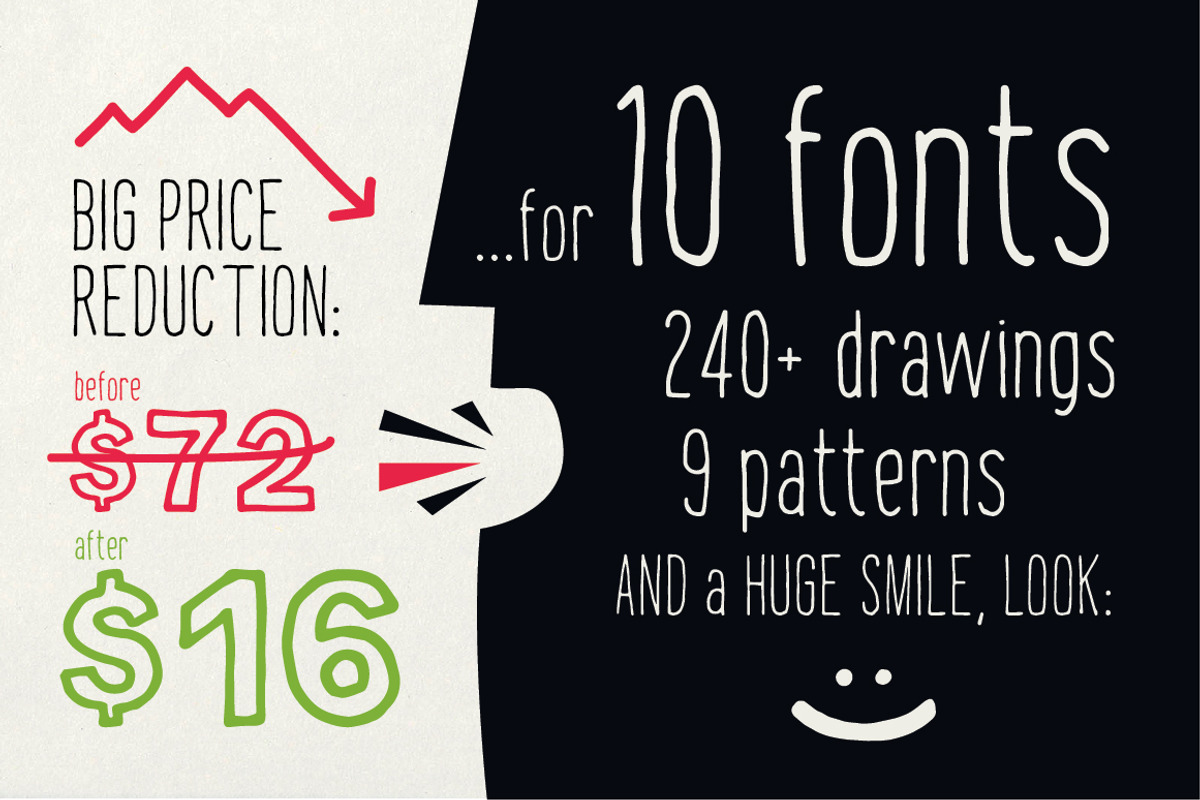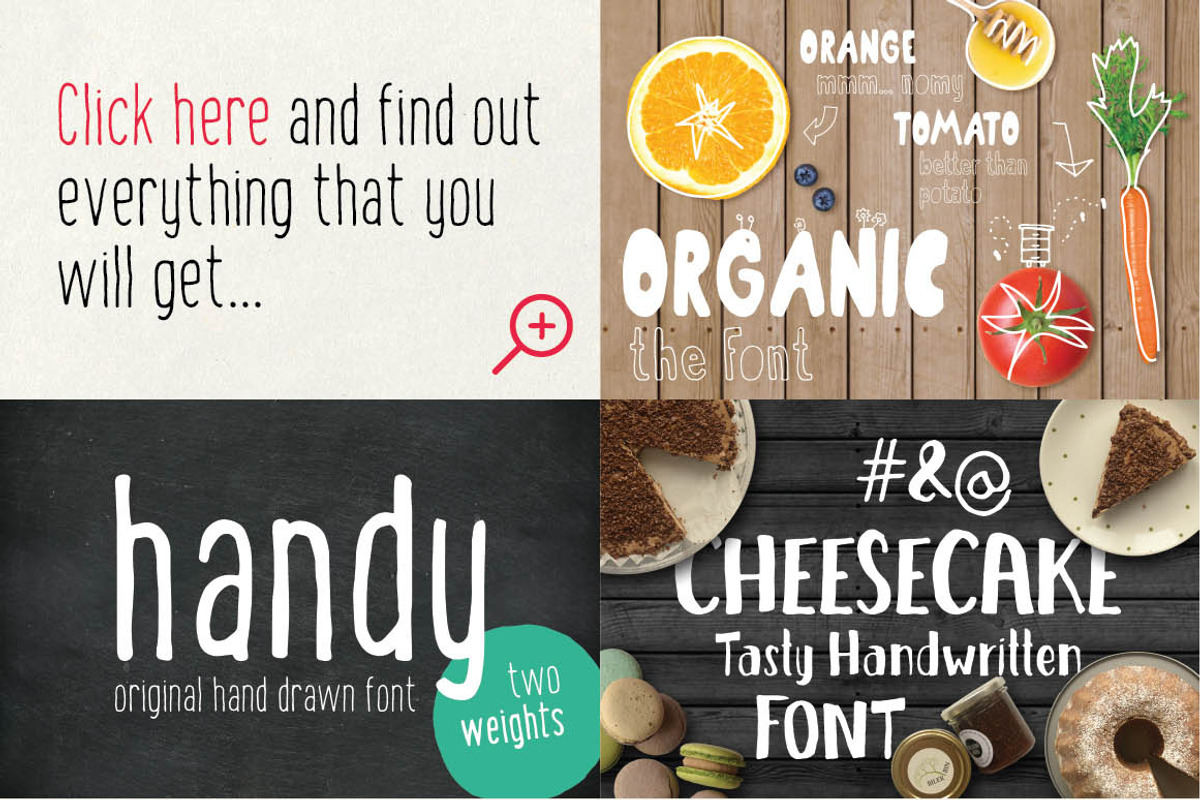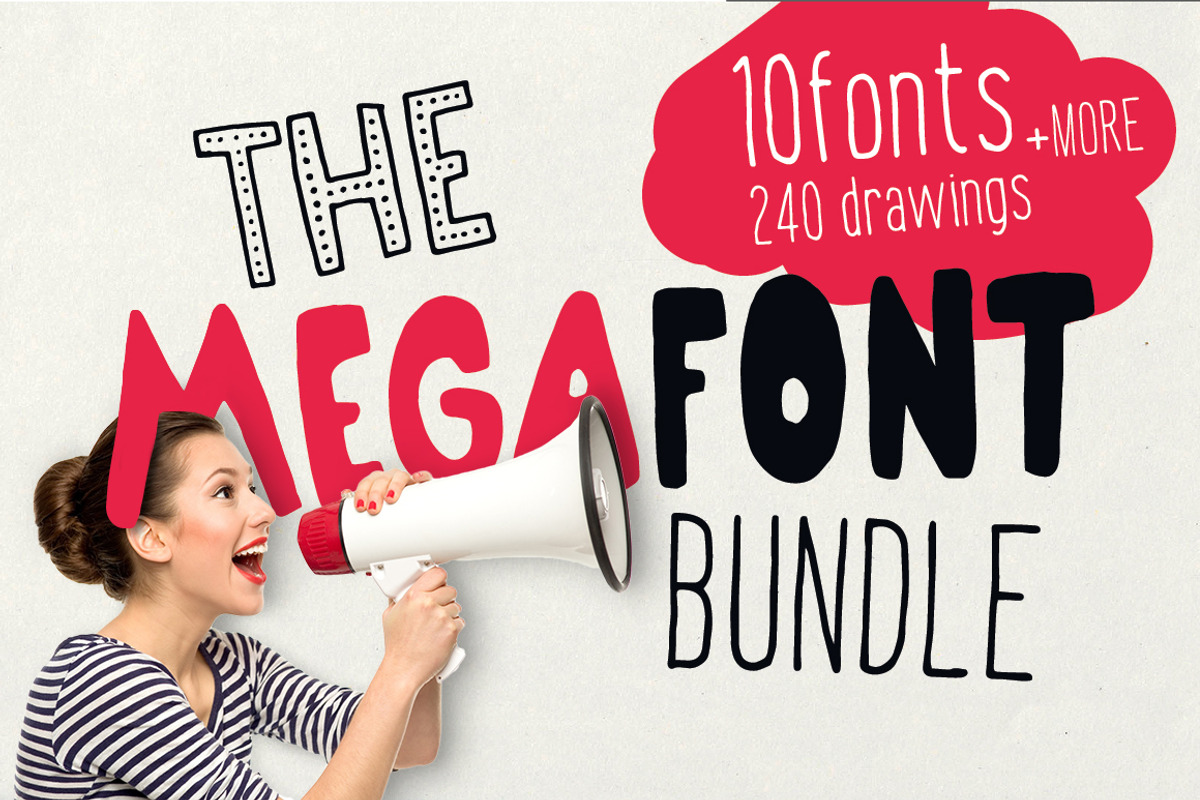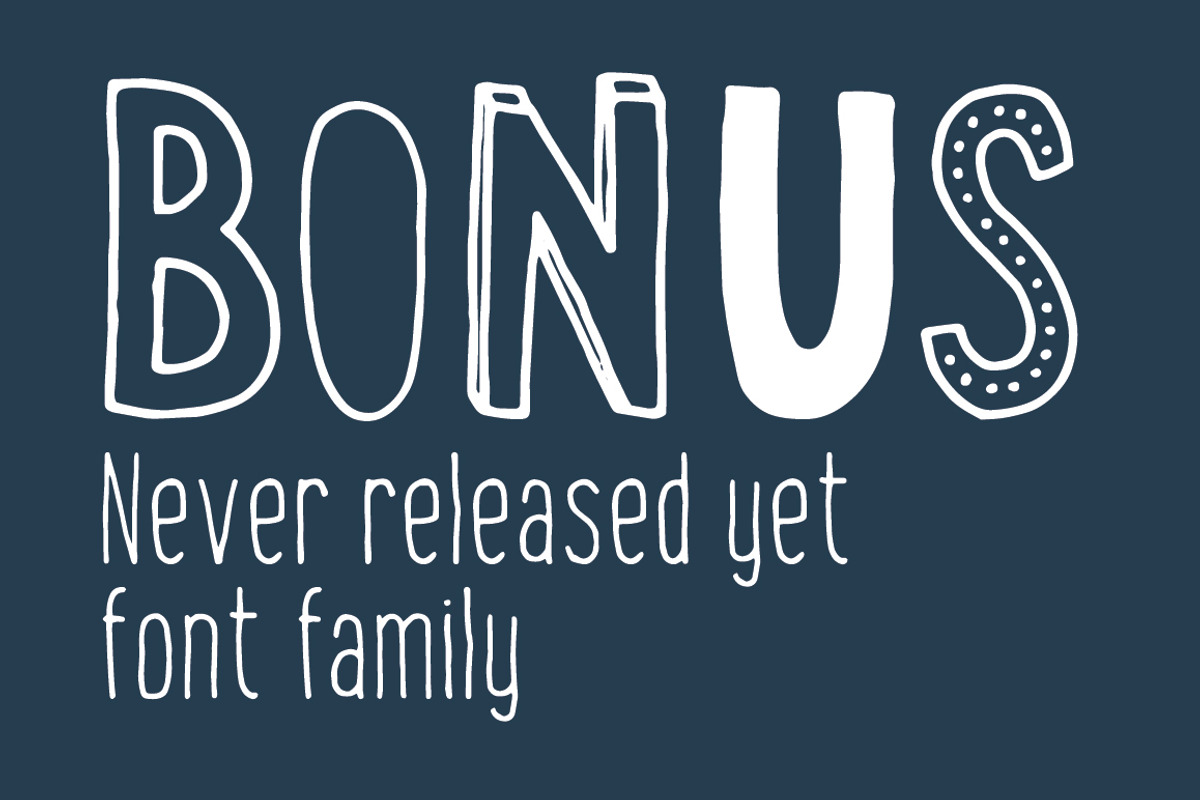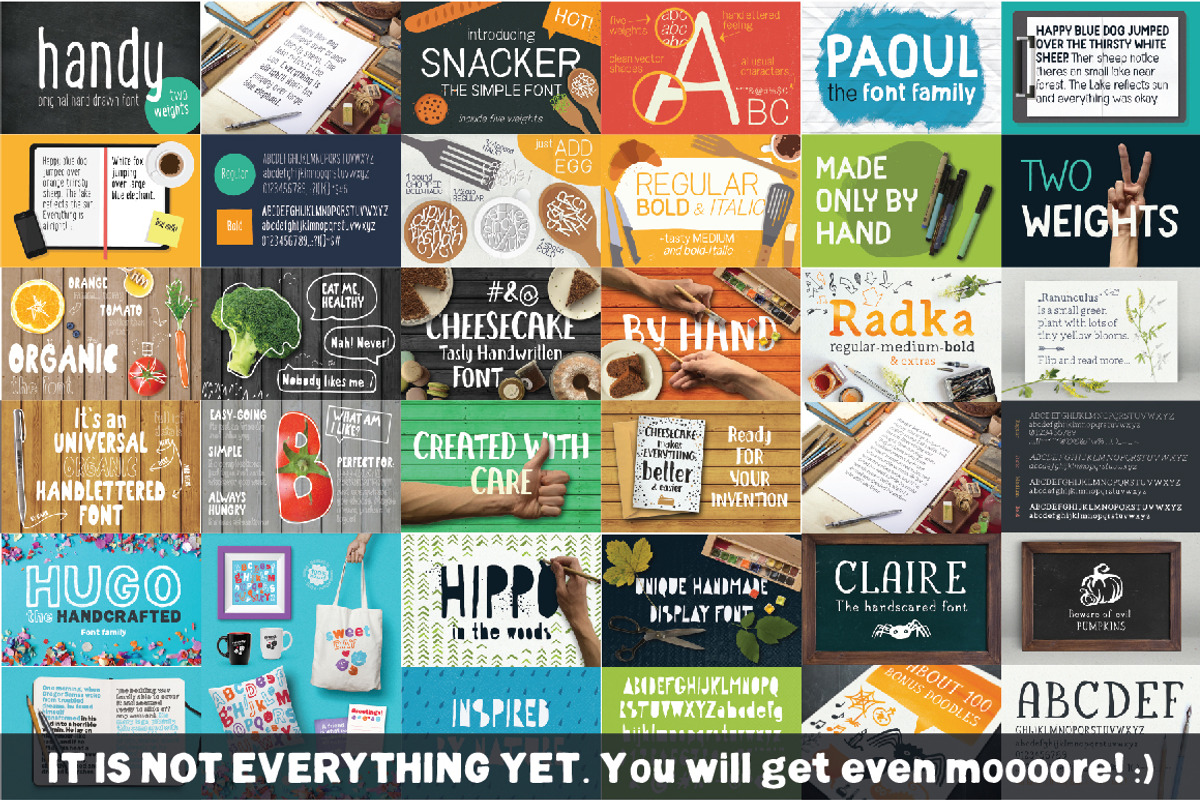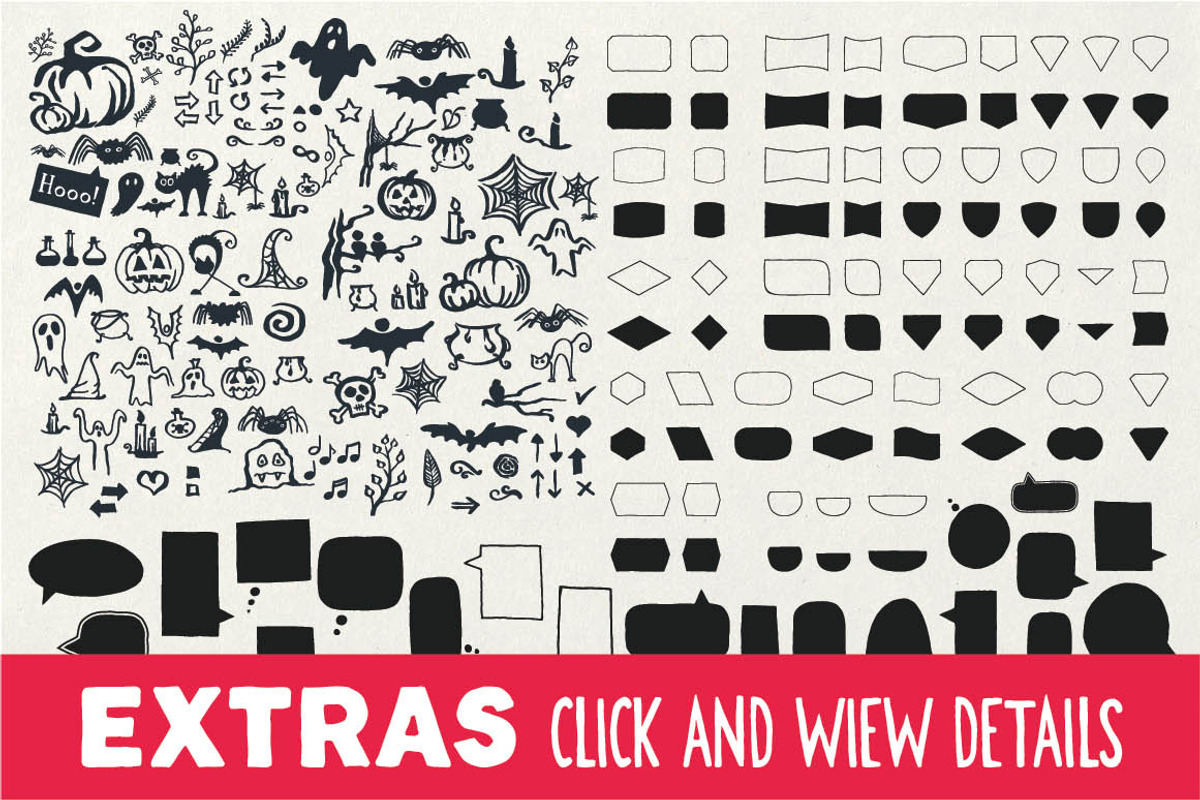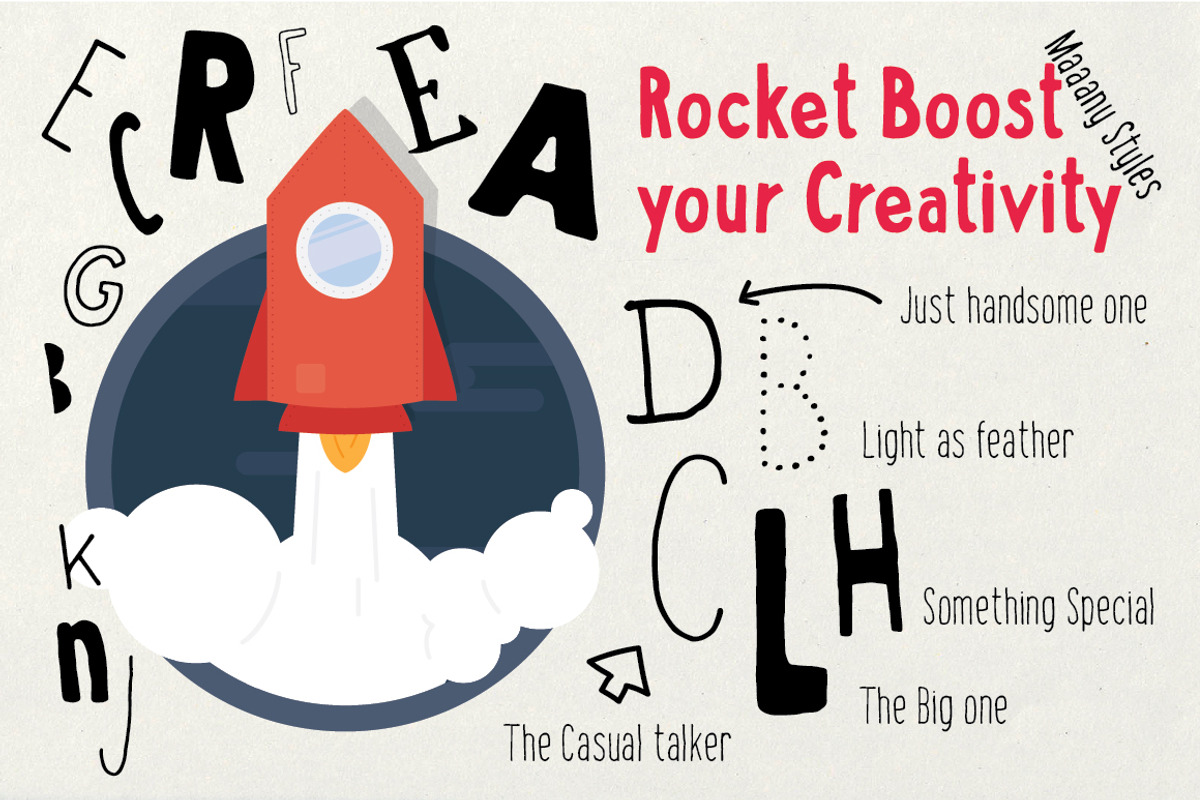
MEGAFONT - Font & Graphics bundle
Today is a huge day. I'm really happy that I can finally share the MegaFont bundle with you! :)
So far it's the entire collection of handlettered fonts I've ever created. You'll find there everything, from thick casual fonts to special ones like "Hippo - the artistic one" or huge Hugo for catchable headlining. Discount is over 78% for now so don't hasitate and grab them all.
It's awesome that I can include some bonus materials which - I hope - will come in handy. Besides everything it's a collection of HandDrawn speech bubbles or small dotted seamless collection.
Last, but not least I want to introduce you the last bonus that comes with this bundle. It's Stack up: The universal font family. I planning to release it at the end of November, but you'll grab it now as a part of this offer.
- Stack up: Exclusive font that haven't been released yet.
- Bonus Creepy Halloween illustrations (displayed on the last image)
- Bonus Hand Sketched badge-making shapes (...)
- Bonus Collection of comic speech bubbles
- Bonus Set of hand drawn doodles
- Bonus Small but handy pack of dotted patterns